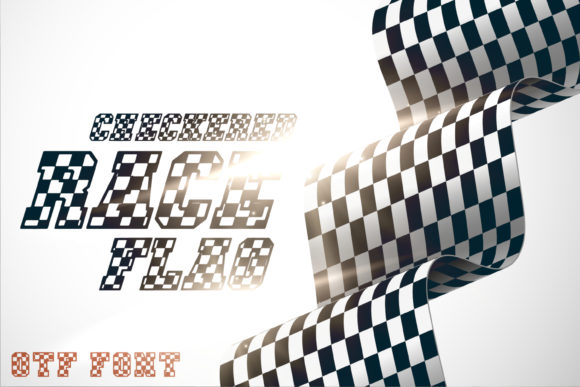
Checkered Race Font: The Ultimate Decorative Font for Car and Sporting Events
Are you looking for a font that can add a touch of excitement and energy to your designs? Look no further than the Checkered Race font. This incredibly bold and interesting decorative font is ideal for any car or sporting event, and is sure to make your designs stand out from the crowd.
What is Checkered Race Font?
Checkered Race is a unique and eye-catching font that features a checkered pattern, reminiscent of the iconic checkered flag used in car racing. The font is designed to be bold and attention-grabbing, making it perfect for use in a variety of applications, from racing team logos to event posters and more.
Key Features of Checkered Race Font
- Bold and Attention-Grabbing: The Checkered Race font is designed to be seen, with a bold and eye-catching design that’s sure to grab attention.
- Unique Checkered Pattern: The font features a unique checkered pattern that’s reminiscent of the iconic checkered flag used in car racing.
- Decorative and Versatile: The Checkered Race font is a decorative font that’s versatile enough to be used in a variety of applications, from logos and posters to social media graphics and more.
- Easily Readable: Despite its bold and decorative design, the Checkered Race font is still easily readable, making it perfect for use in a variety of contexts.
Why Choose Checkered Race Font?
So why choose the Checkered Race font for your next design project? Here are just a few reasons why this font is an excellent choice:
- Perfect for Car and Sporting Events: The Checkered Race font is specifically designed with car and sporting events in mind, making it the perfect choice for any project related to these themes.
- Adds Energy and Excitement: The bold and eye-catching design of the Checkered Race font is sure to add energy and excitement to your designs.
- Stand Out from the Crowd: With its unique checkered pattern and bold design, the Checkered Race font is sure to make your designs stand out from the crowd.
- Easy to Use: The Checkered Race font is easy to use and can be easily integrated into a variety of design projects.
How to Use Checkered Race Font
So how can you use the Checkered Race font in your designs? Here are a few ideas to get you started:
- Racing Team Logos: Use the Checkered Race font to create bold and eye-catching logos for racing teams.
- Event Posters: Create eye-catching posters for car and sporting events using the Checkered Race font.
- Social Media Graphics: Use the Checkered Race font to create social media graphics that are sure to grab attention.
- Merchandise: Use the Checkered Race font to create merchandise such as t-shirts, hats, and more.
Tips for Using Checkered Race Font
Here are a few tips for using the Checkered Race font in your designs:
- Use it Sparingly: While the Checkered Race font is bold and eye-catching, it can be overwhelming if used too much. Use it sparingly to create maximum impact.
- Pair it with Other Fonts: The Checkered Race font can be paired with other fonts to create a unique and interesting design.
- Experiment with Colors: The Checkered Race font can be used with a variety of colors to create a unique and eye-catching design.
The Checkered Race font is an incredibly bold and interesting decorative font that’s ideal for any car or sporting event. With its unique checkered pattern and bold design, this font is sure to add energy and excitement to your designs. Whether you’re creating logos, posters, social media graphics, or merchandise, the Checkered Race font is a great choice. So why wait? Download the Checkered Race font today and start creating eye-catching designs that are sure to stand out from the crowd.
- What is the Checkered Race font? The Checkered Race font is a decorative font that features a checkered pattern, reminiscent of the iconic checkered flag used in car racing.
- What is the Checkered Race font used for? The Checkered Race font is ideal for use in a variety of applications, including logos, posters, social media graphics, and merchandise related to car and sporting events.
- Is the Checkered Race font easy to read? Yes, despite its bold and decorative design, the Checkered Race font is still easily readable.